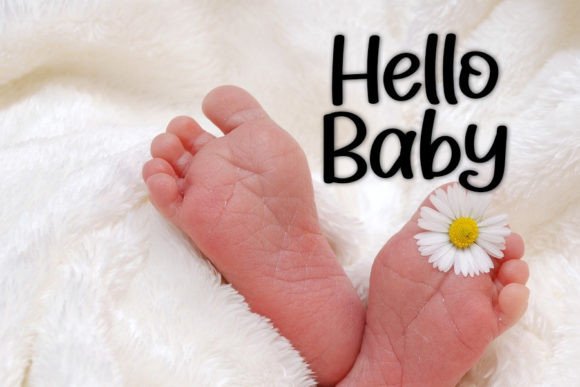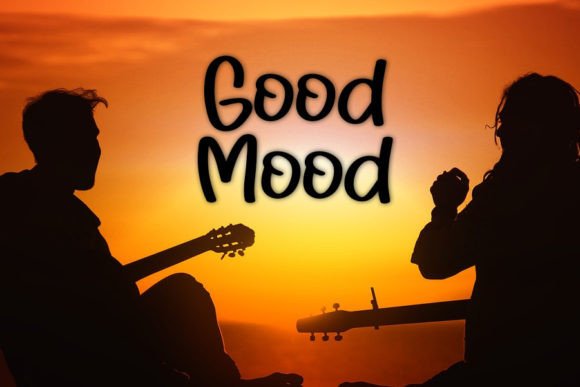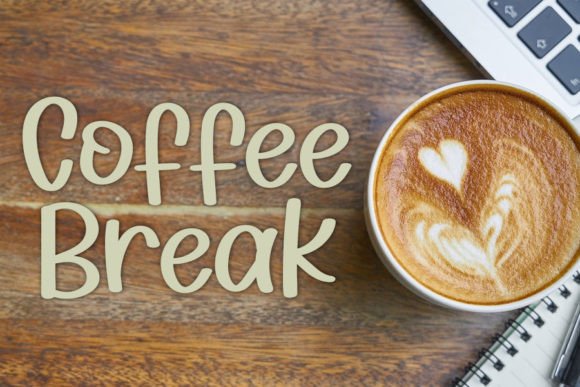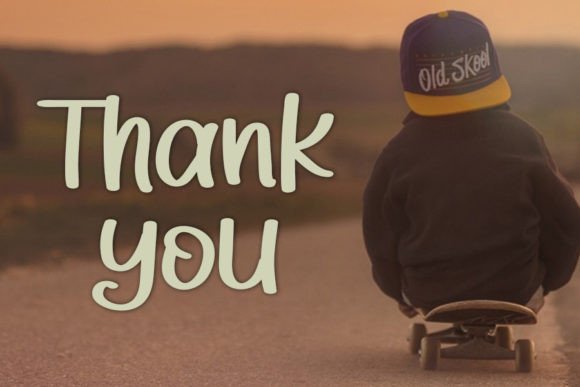
Child Font
Add Charm and Elegance with Child Handwritten Font
The Child Handwritten Font is a beautifully crafted typeface that perfectly blends charm and elegance. Designed with gentle curves and natural flow, this font adds a personal, heartfelt touch to any design. Whether you’re creating wedding invitations, logo designs, or greeting cards, Child brings both warmth and sophistication.
This font isn’t just about style—it’s also about connection. Every stroke feels intentional, making your words more expressive and memorable.
Ideal for Weddings, Quotes, Cards, and More
Child is especially well-suited for wedding invitations, thank-you cards, and love letters, where a romantic and personal tone is essential. Its soft script style makes the text feel handwritten, giving your designs a warm and human touch.
In addition, Child works well in logo design, branding materials, and business cards. Its balance between elegance and playfulness allows it to communicate both professionalism and creativity. Whether you’re crafting a brand for a boutique or designing a personal monogram, Child adapts with grace.
A Handwritten Script with Unique Appeal
What sets the Child Font apart is its balance. While it’s undeniably decorative, it never sacrifices readability. The smooth flow of the letters creates a relaxed rhythm, making it perfect for both short headlines and longer phrases.
Moreover, the font features a slightly irregular baseline and subtle variations in stroke weight. These handcrafted details mimic real handwriting, enhancing the emotional tone of your message.
Beautiful in Both Digital and Print Formats
One of the strengths of the Child font is its versatility. In digital design, it adds softness to social media graphics, Pinterest pins, and Instagram quotes. For websites and email newsletters, it can be used in headers or to highlight special content.
On the other hand, in print design, Child shines on stationery, gift tags, labels, flyers, and event signage. The font remains crisp and stylish whether it’s printed large or small.
To maximize its visual impact, pair Child with a minimalist serif or sans-serif font. This pairing allows Child to stand out while keeping the overall layout clean and well-balanced.
Why Choose Child Handwritten Font?
Here’s why designers love using Child:
• Elegant and charming handwritten style
• Excellent readability across sizes and formats
• Versatile use in personal and commercial designs
• Adds warmth and personality to any layout
• Perfect for print and digital applications
Let Your Words Shine with Child
In conclusion, the Child Handwritten Font is an exceptional choice for anyone looking to add charm, elegance, and a human touch to their work. From romantic notes to stylish branding, Child helps communicate your message with heart and beauty.
If you need a font that brings both emotion and sophistication, Child is the handwritten script that delivers on every level.